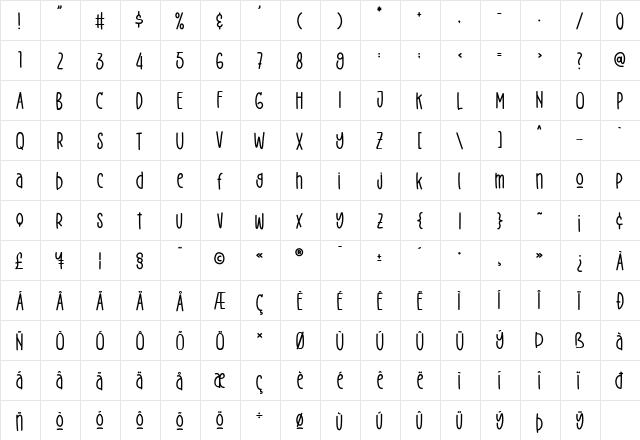
Delight Love Regular
| Foundry | Garisman Studio |
| Designer | Risman Ginarwan |
Design Context for Delight Love Typeface
Delight Love offers clean, dependable letterforms without strong stylistic allegiance, making it a practical choice for designers who need flexibility. Its slender proportions lend an understated elegance to any composition.